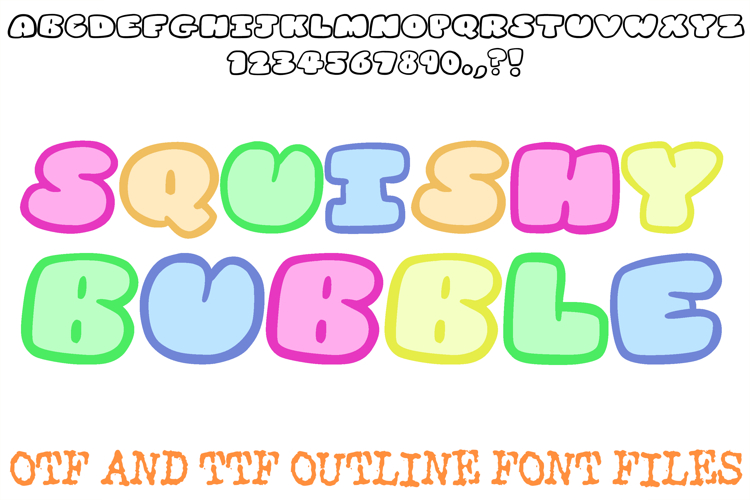
The Squishy Bubble Font is a joyful, ultra-rounded display typeface designed to bring a sense of softness and fun to every creative project. Featuring chunky, pillowy letterforms with a clean, bold outline, this font captures a modern "plushie" aesthetic. It is a premier tool for designers working on nursery decor, children’s book titles, cheerful social media branding, and custom apparel.
Crafted with a focus on high-impact cuteness, Squishy Bubble balances a bulky, high-volume silhouette with a friendly, approachable feel. Whether you are creating vibrant stickers for a stationery shop or bold, bubbly headers for a lifestyle blog, this font’s squeezable look ensures your message stands out with a touch of whimsy.
Why Your Designs Will Stand Out
Ultra-Rounded Puffy Aesthetic: The thick, balloon-like character shapes provide a modern, high-impact look that is perfect for focal point titles and playful messaging.
Clean Bold Outlines: Meticulously drawn with consistent, smooth strokes, making it an ideal asset for vinyl cutting, screen printing, and precision crafting projects.
Friendly & Approachable Vibe: The lack of sharp edges gives the typeface an inviting quality, perfect for branding that aims to feel warm and lighthearted.
Optimized for Crafting: The simplified, bubbly paths are specifically designed for easy weeding with cutting machines like Cricut and Silhouette.